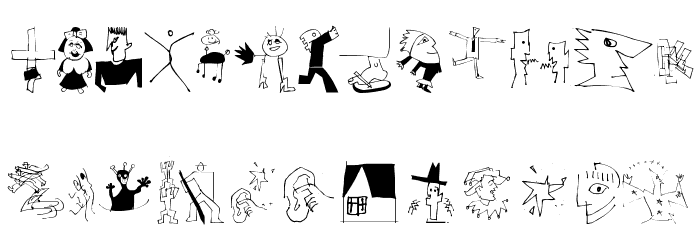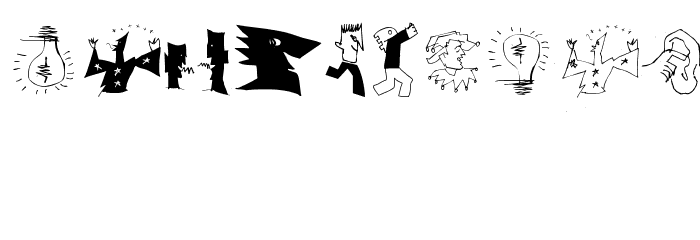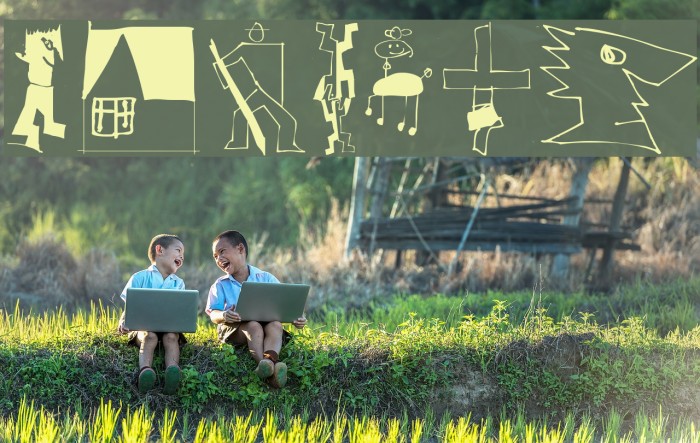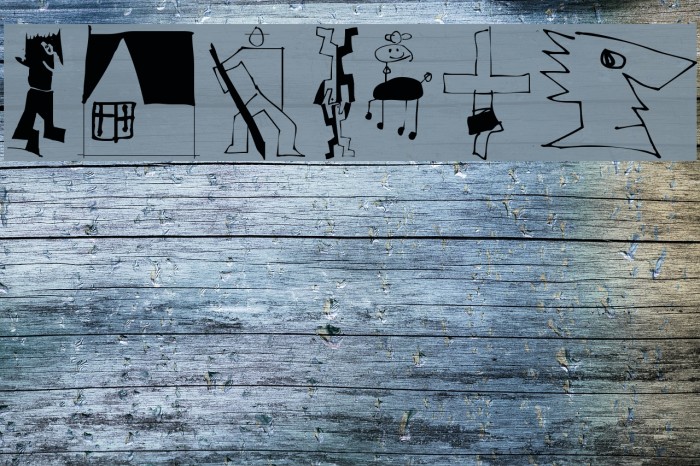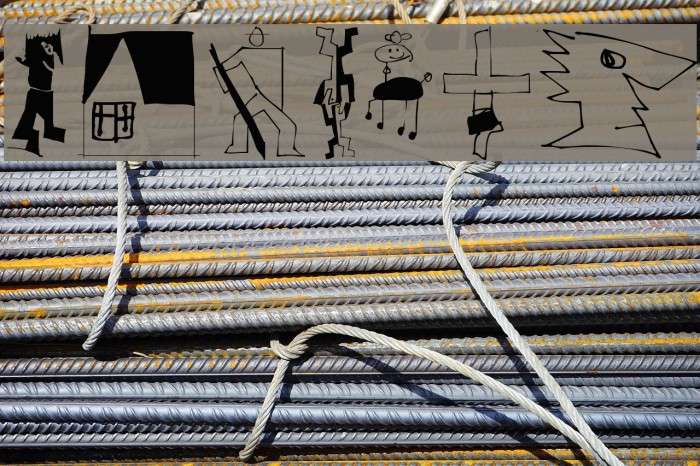
SurReal Font
This font is an imaginative and abstract collection of characters, each designed with a unique and surreal artistic flair. The characters resemble whimsical drawings, each with its own distinct personality and style. The design elements include exaggerated features, playful forms, and a variety of artistic expressions that make each character stand out. The font is not traditional in any sense, as it breaks away from conventional letterforms, offering a creative and artistic approach to typography. The characters are more illustrative, resembling doodles or sketches, which adds a layer of artistic expression and creativity. This font is ideal for projects that require a touch of whimsy and artistic flair, making it suitable for creative industries, art projects, and any work that benefits from a unique and unconventional typeface.
A whimsical and artistic font with abstract, doodle-like characters.
- Proposed Projects: Artistic projects, creative branding, children's books, unique posters, and any design requiring a playful and imaginative touch.
- Overall Style: Surreal, Artistic, Whimsical
- Use Case: Creative projects, Artistic displays, Unique branding